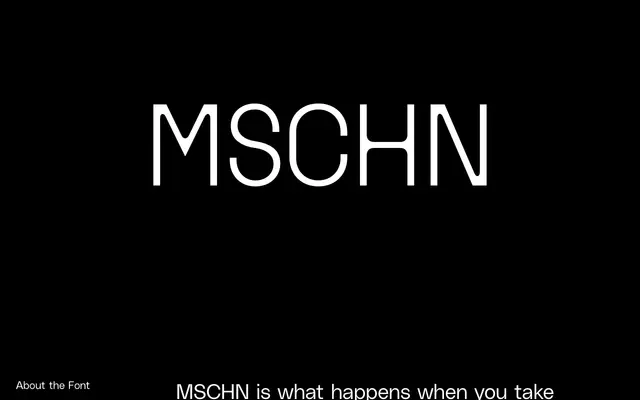
A geometric display typeface drawn from industrial signage, with sturdy letterforms softened at the inner corners and an italic cut that twists forms as if subjected to mechanical force.
The upright styles take their cue from factory-floor lettering and metal signage, using geometric construction with soft inner corners that suggest wear and age rather than pristine draftsmanship. The five weights run from XS to XL, each with a matching italic that abandons conventional slanting in favour of organically rotated and distorted forms. That contrast between the controlled rigidity of the uprights and the wilful strangeness of the italics gives the family its expressive range.
Built on a geometric foundation with mechanical precision and sturdy letterforms drawn from factory signage and industrial typography; the expressive, physically distorted italics push it firmly into display territory rather than neutral geometric sans.